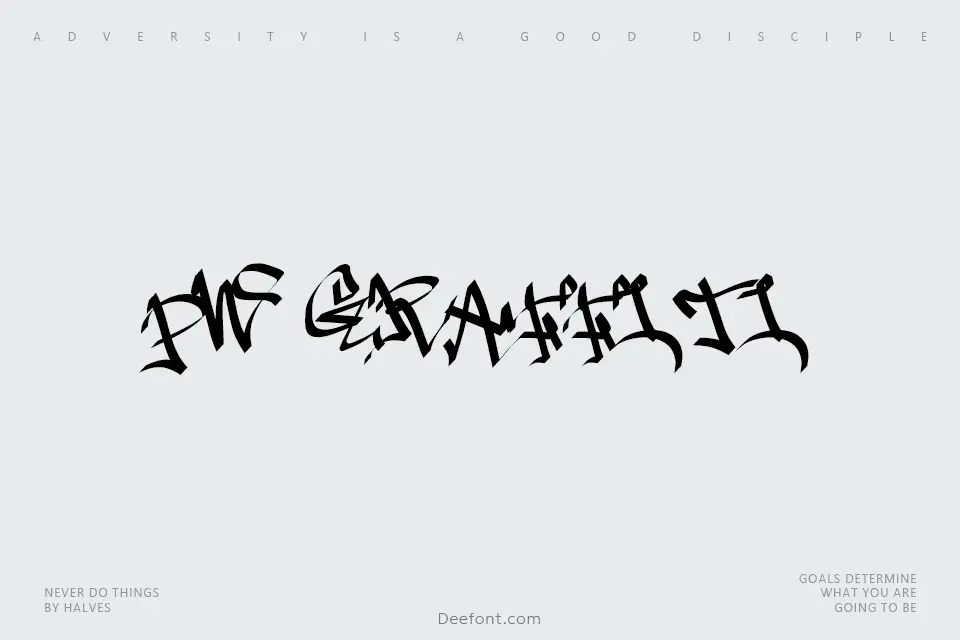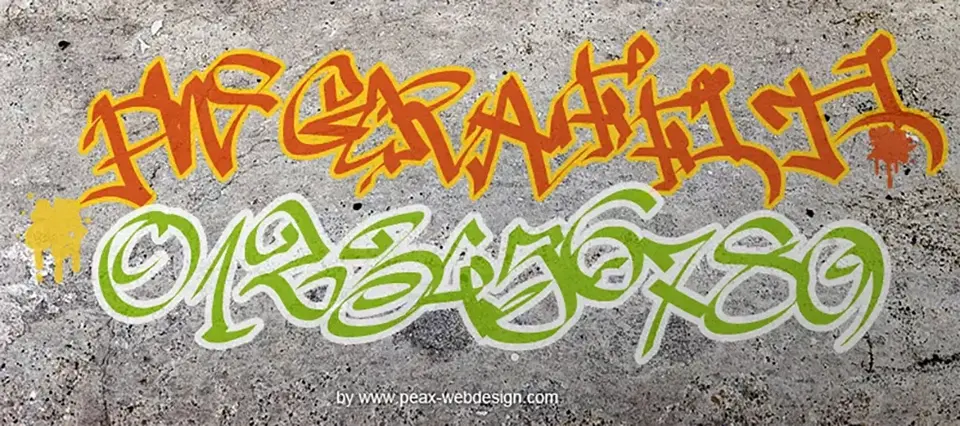
PW Graffiti Font
PW Graffiti is a distinctive graffiti script font featuring a full set of capital letters, numerals, and decorative glyphs with characteristic rounded shapes and hairpin bends. Created by designer Michel Lun, this font delivers authentic urban street art aesthetics with artistic flair perfect for creative projects ranging from poster design to digital artwork. The font’s dynamic letterforms bring vibrant energy to typography, making it ideal for designers seeking to add bold, expressive character to their work.
Designed by:Michel Lun (Peax Webdesign)